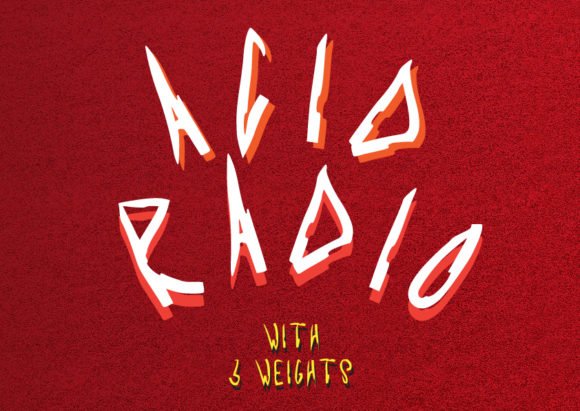
Unlock the Groove with Acid Radio Font
Remember the moment when you stumbled upon a quirky font that completely transformed your design? That’s exactly what happened when we discovered the Acid Radio Font. This jarring and playful display font has a unique style that’s sure to make your creative projects stand out.
The Acid Radio Font is a bold and eye-catching typeface designed to add an experimental twist to your designs. Whether you’re working on a music festival flyer, a fashion brand’s logo, or a futuristic sci-fi movie title, this font is sure to bring a dash of excitement to your project. As a designer, you’ll appreciate the versatility and creativity that Acid Radio Font brings to the table.
Acid Radio Font Key Features
- Unique Characteristics: The font features a distinctive, futuristic aesthetic with a blend of digital and analog elements, making it suitable for retro-futuristic and sci-fi designs.
Acid Radio Font Review
Overall, I’d say the Acid Radio font is a unique and interesting addition to any design project. It has a certain retro-futuristic vibe that can be really effective in the right context.
- The font’s bold and distressed texture adds a lot of character to headings and titles.
- The font’s curves and lines create a sense of movement and energy, which can be great for designs that need to convey a sense of dynamism.
- The font is highly customizable, allowing designers to adjust the texture, color, and size to suit their needs.
- The font can be quite overwhelming at larger sizes, and may not be suitable for body text or smaller designs.
- The font’s distressed texture may not be suitable for designs that require a clean and minimalist aesthetic.
- The font may not be easily readable in certain contexts, such as in low-contrast designs or at very small sizes.
Overall, I think the Acid Radio font is a great choice for designers who want to add a touch of retro-futurism to their projects. While it may have some limitations, it’s definitely worth considering for the right design.
To get the most out of the Acid Radio font, use it for retro-inspired designs, such as 80s or 90s-themed graphics. Experiment with bold font sizes and bright colors to create a striking visual effect.
Acid Radio is perfect for:
- Retro-themed graphics and designs
- 80s and 90s-inspired posters and flyers
- Music and arts-related projects